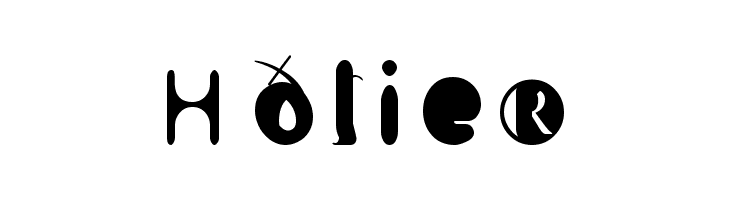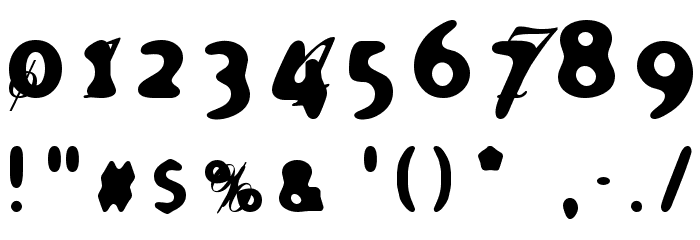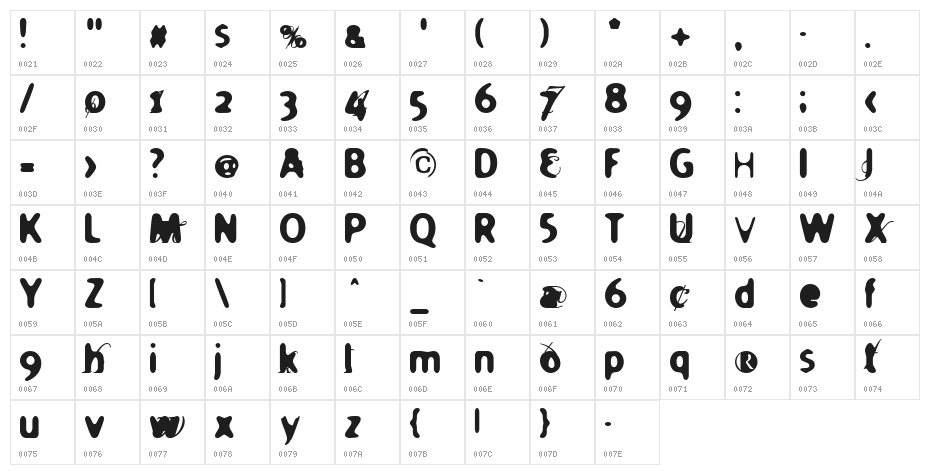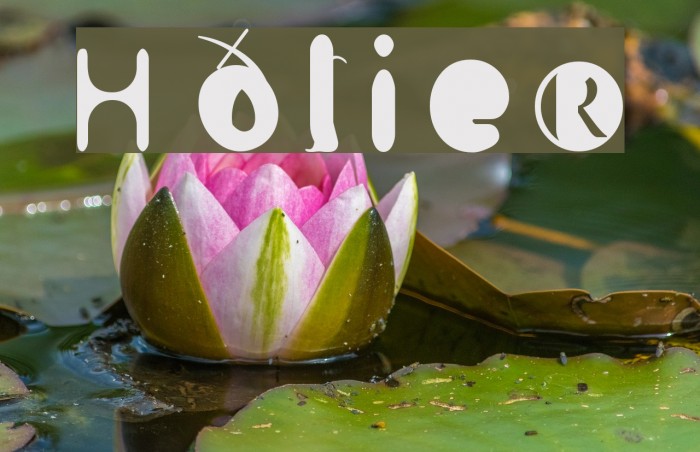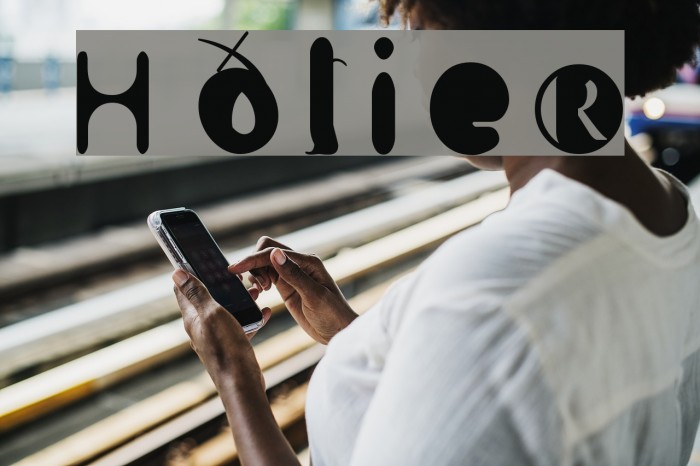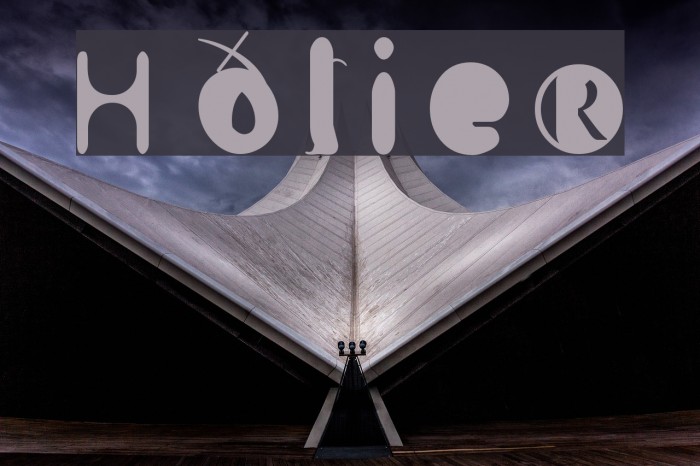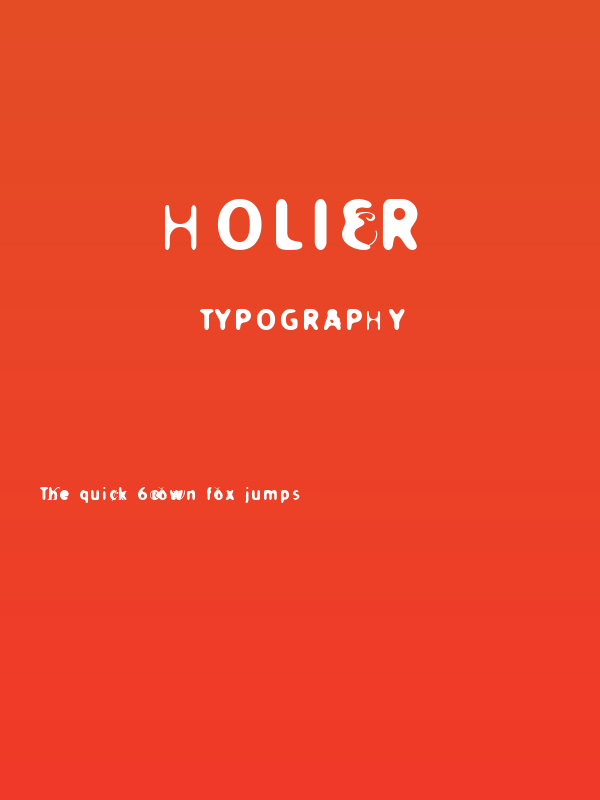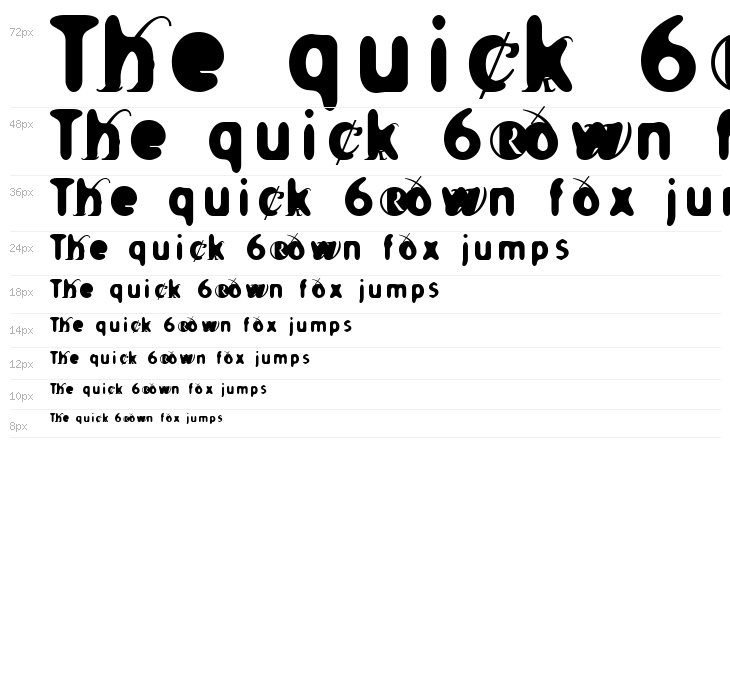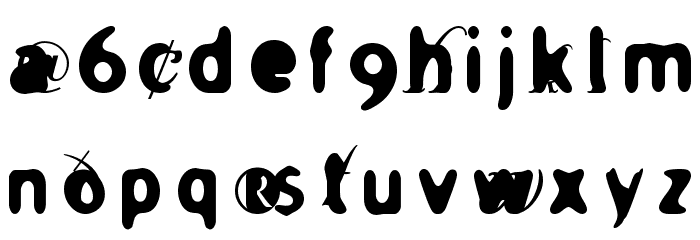
Holier Font
Holier Description
This font features a bold and playful design with a unique, quirky style. Each character is crafted with a thick, rounded form, incorporating unexpected curves and loops that give it a whimsical appearance. The letters are highly stylized, with some characters featuring exaggerated elements that add to the font's charm. The overall look is both fun and artistic, making it stand out in any design. The numbers and special characters follow the same playful theme, ensuring consistency throughout the typeface.
HOLIER UPPERCASE
HOLIER LOWERCASE
HOLIER OTHER CHARS
| Proposed Projects | Ideal for children's books, playful branding, creative posters, and artistic projects. |